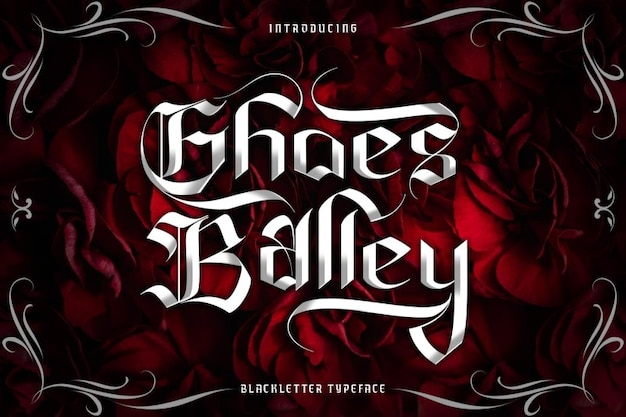
Ghoes Balley Font
Alit Design
The Ghoes Balley font is the perfect example of a gothic and blackletter typeface. Its medieval look will definitely make your project stand out! You can use it for many purposes, especially for hard rock projects or tattoos. Download it now and start creating!